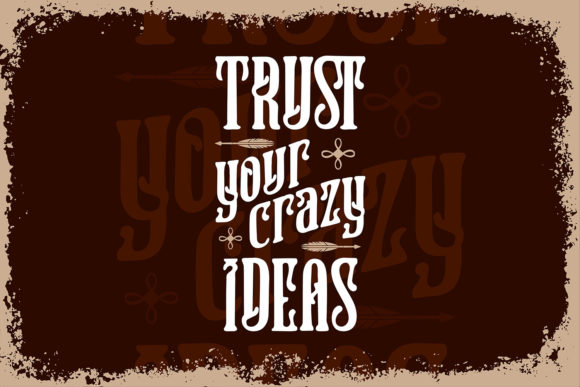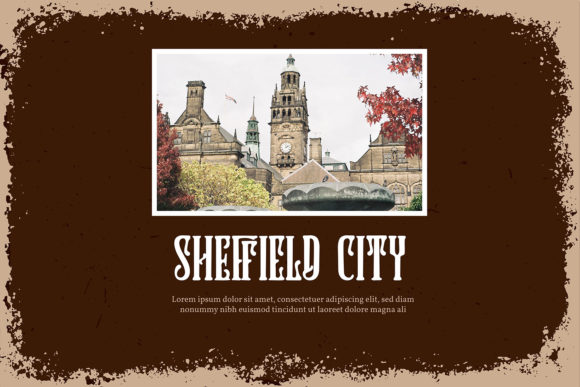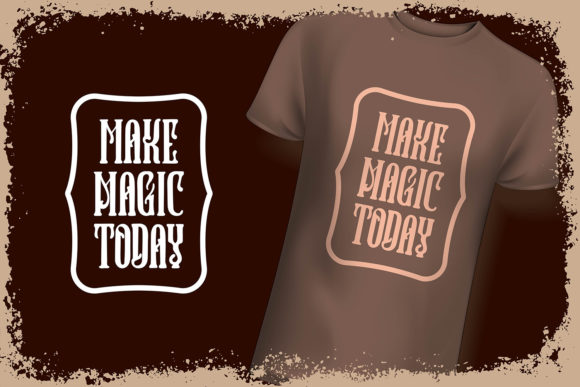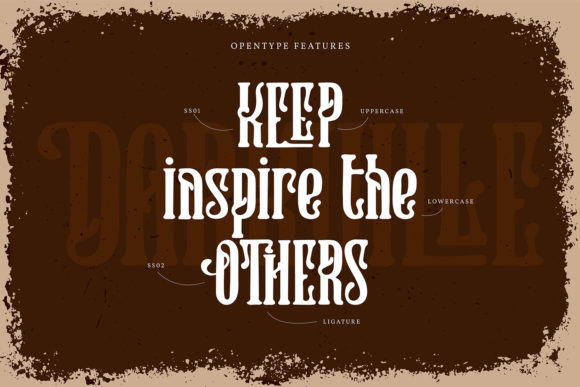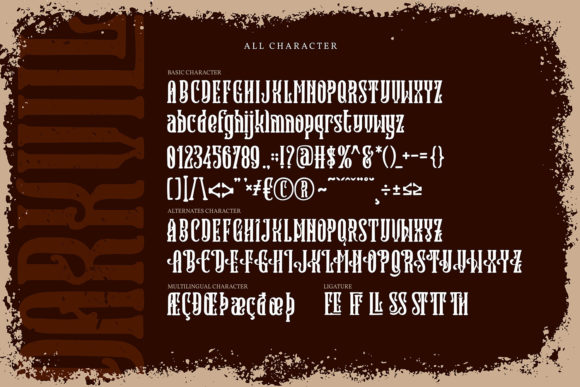
Unleash Your Creativity with Darkville Font: A Timeless Classic for Designers and Crafters
In the world of typography, fonts play a crucial role in conveying the tone and personality of a brand or design. For designers and crafters looking to add a touch of elegance and sophistication to their work, the Darkville Font is an excellent choice. This classic and vintage-styled display font is perfect for creating eye-catching labels, branding, and other visual elements that require a bold touch.
What is Darkville Font?
Darkville is a beautifully crafted font that exudes a sense of nostalgia and timelessness. Its classic design makes it an ideal choice for designers and crafters who want to add a vintage flair to their work. The font is perfect for creating stunning labels, posters, and branding materials that require a bold and eye-catching typography.
Key Features of Darkville Font
So, what makes Darkville Font stand out from the rest? Here are some of its key features:
• Classic and Vintage Style: Darkville Font boasts a classic and vintage design that is sure to add a touch of elegance to your work.
• Display Font: This font is specifically designed as a display font, making it perfect for headlines, titles, and other visual elements that require a bold touch.
• PUA Encoded: Darkville Font is PUA encoded, which means you can access all of the glyphs and swashes with ease. This feature makes it easy to use and customize the font to suit your needs.
• Multipurpose: This font can be used for a wide range of design projects, including labels, branding, posters, and more.
Why Choose Darkville Font?
With so many fonts available, why should you choose Darkville Font for your design projects? Here are a few compelling reasons:
• Unique and Eye-Catching: Darkville Font is a unique and eye-catching font that is sure to grab attention. Its classic design and bold style make it perfect for creating stunning visual elements.
• Easy to Use: The font is PUA encoded, making it easy to access all of the glyphs and swashes. This feature saves you time and effort, allowing you to focus on the creative aspect of your design.
• Versatile: Darkville Font can be used for a wide range of design projects, from labels and branding to posters and more.
• High-Quality: This font is of high quality, ensuring that your design projects look professional and polished.
• Choose the Right Size: Choose a size that suits your design project. Darkville Font can be used for large or small designs, depending on your needs.
• Experiment with Colors: Experiment with different colors to find the one that works best for your design. Darkville Font looks great in bold and bright colors.
• Pair it with Other Fonts: Darkville Font can be paired with other fonts to create a unique and visually appealing design.
In conclusion, Darkville Font is a timeless classic that is perfect for designers and crafters looking to add a touch of elegance and sophistication to their work. Its classic design, bold style, and PUA encoding make it an excellent choice for creating stunning labels, branding, and other visual elements. With its versatility, ease of use, and high-quality design, Darkville Font is a must-have for any designer or crafter looking to take their work to the next level.